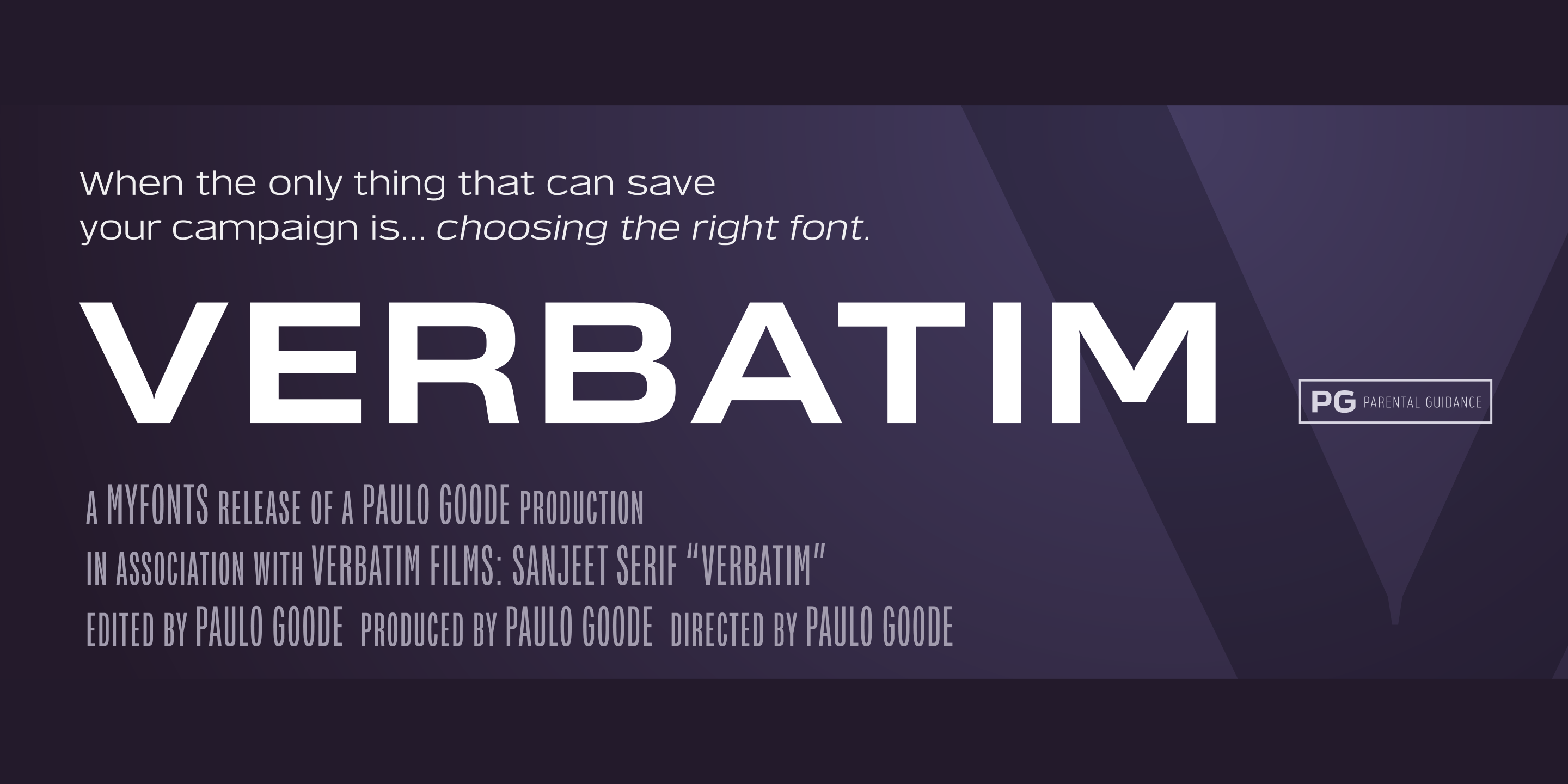
Verbatim Font excels in various design applications including legal documents, technical manuals, code documentation, official transcripts, academic citations, precise reports, government communications, and professional correspondence. This exact typeface adapts perfectly to both accurate digital documentation and authoritative print materials, making it ideal for designers seeking precision and literal authenticity in their visual communications.
Verbatim Font generates excitement among typography professionals due to its literal character and precise styling that instantly conveys accuracy and professional exactness. The font's exact letterforms and consistent proportions create an immediate sense of reliability and documentary precision. Its meticulous personality makes it particularly appealing for organizations wanting to communicate accuracy, professionalism, and word-for-word authenticity in their visual identity.
The Verbatim Font family encompasses multiple weights and styles including Regular, Bold, Light, Mono, and Condensed variations. Each family member maintains precise design principles while offering distinct documentary characteristics. The Light weight provides subtle accuracy for detailed documentation, while the Mono version delivers exact spacing for code and technical applications requiring perfect alignment.
Professional designers frequently choose Verbatim Font Free Download for projects requiring both documentary authenticity and brand credibility. This typeface demonstrates remarkable effectiveness across professional industries including legal services, technical documentation, government agencies, and academic institutions. Its precise character allows organizations to communicate exactness while maintaining excellent readability and authoritative visual presence that ensures accurate information transmission.